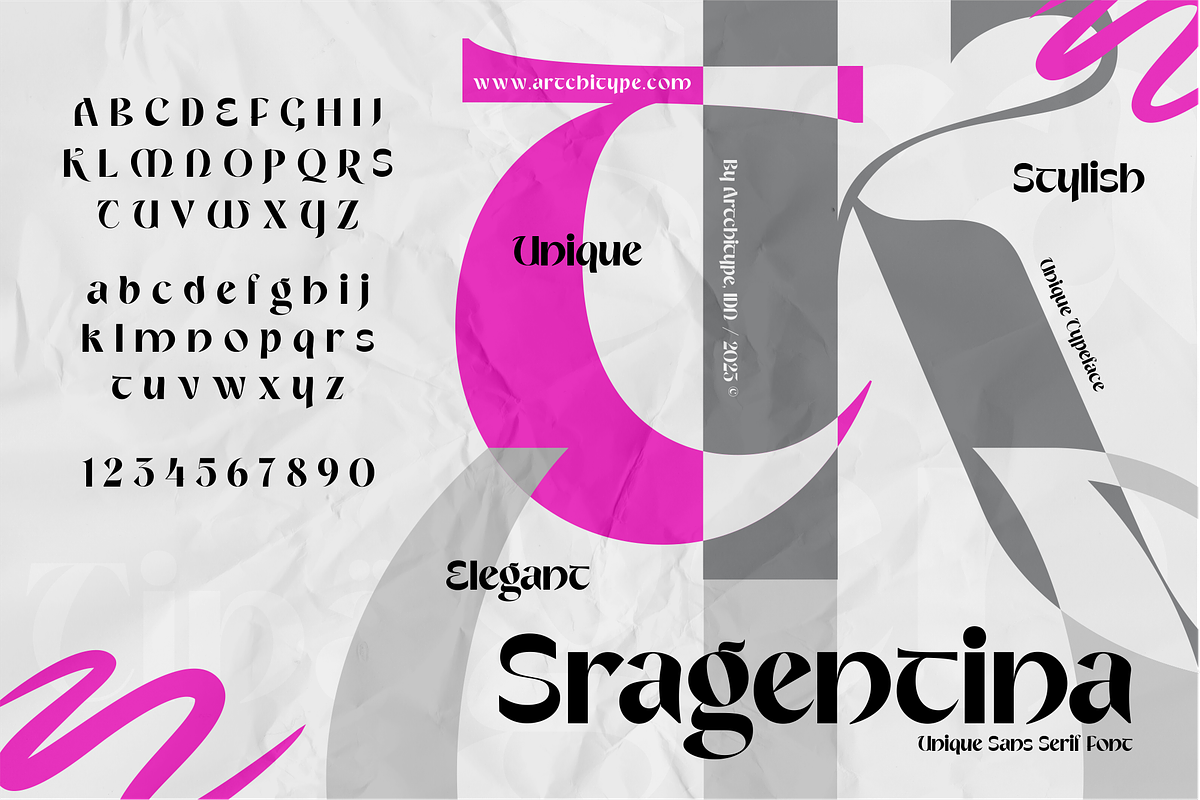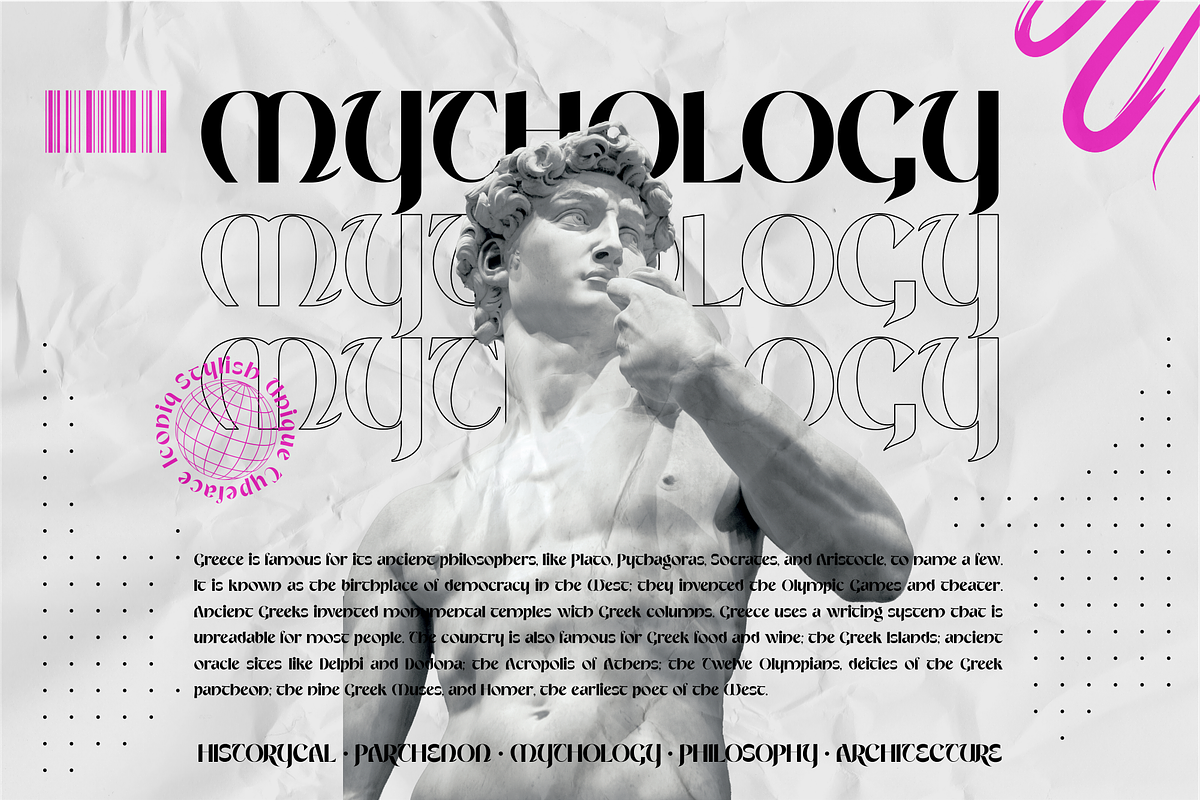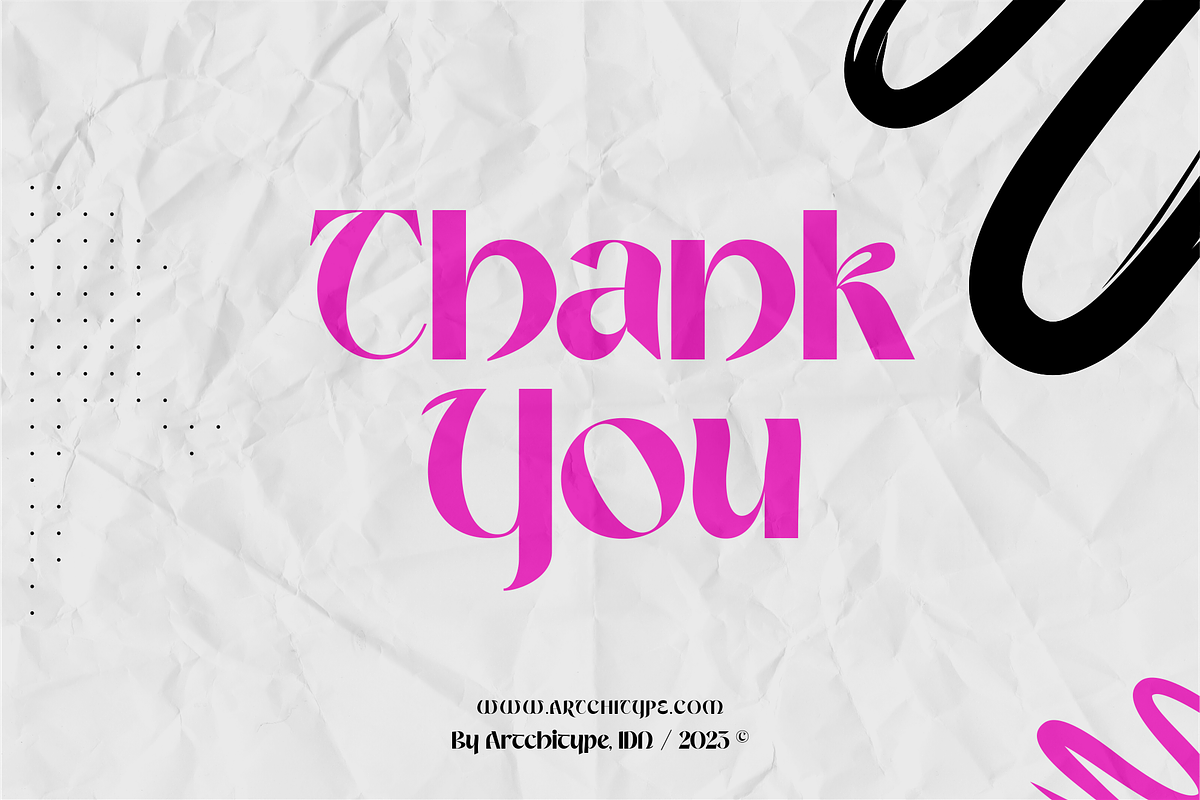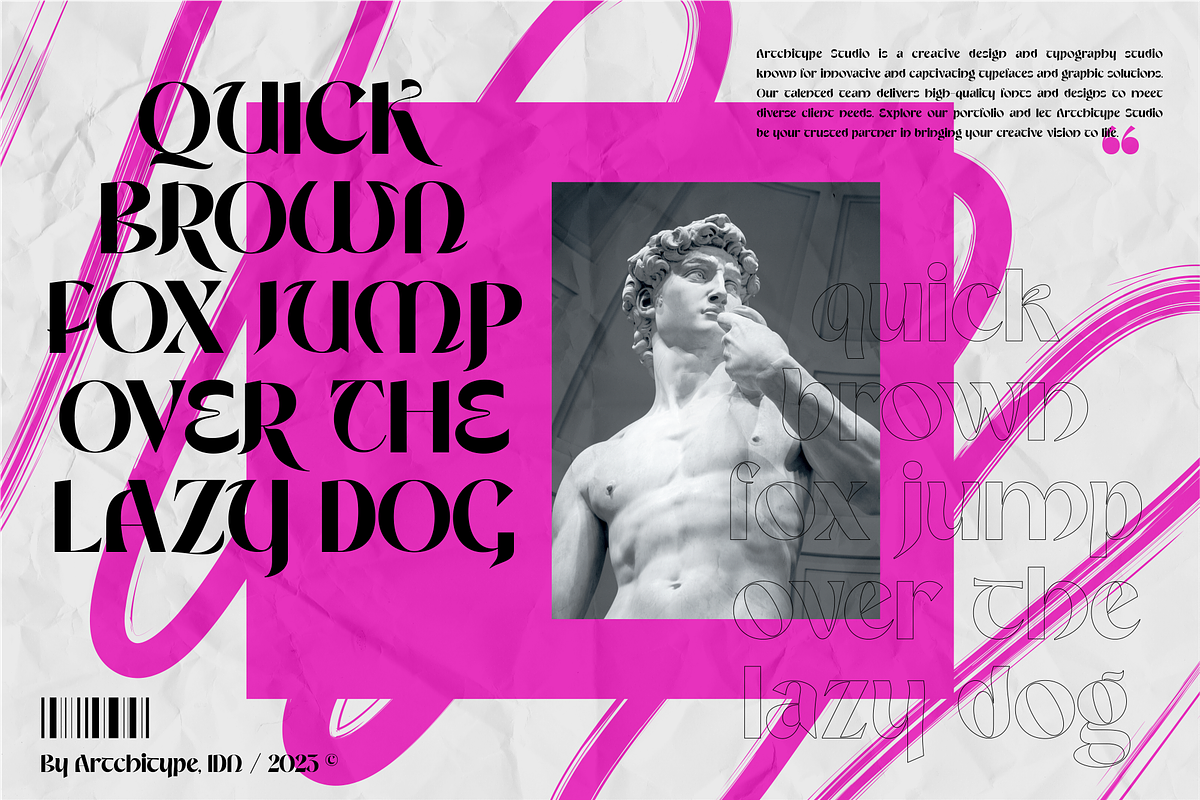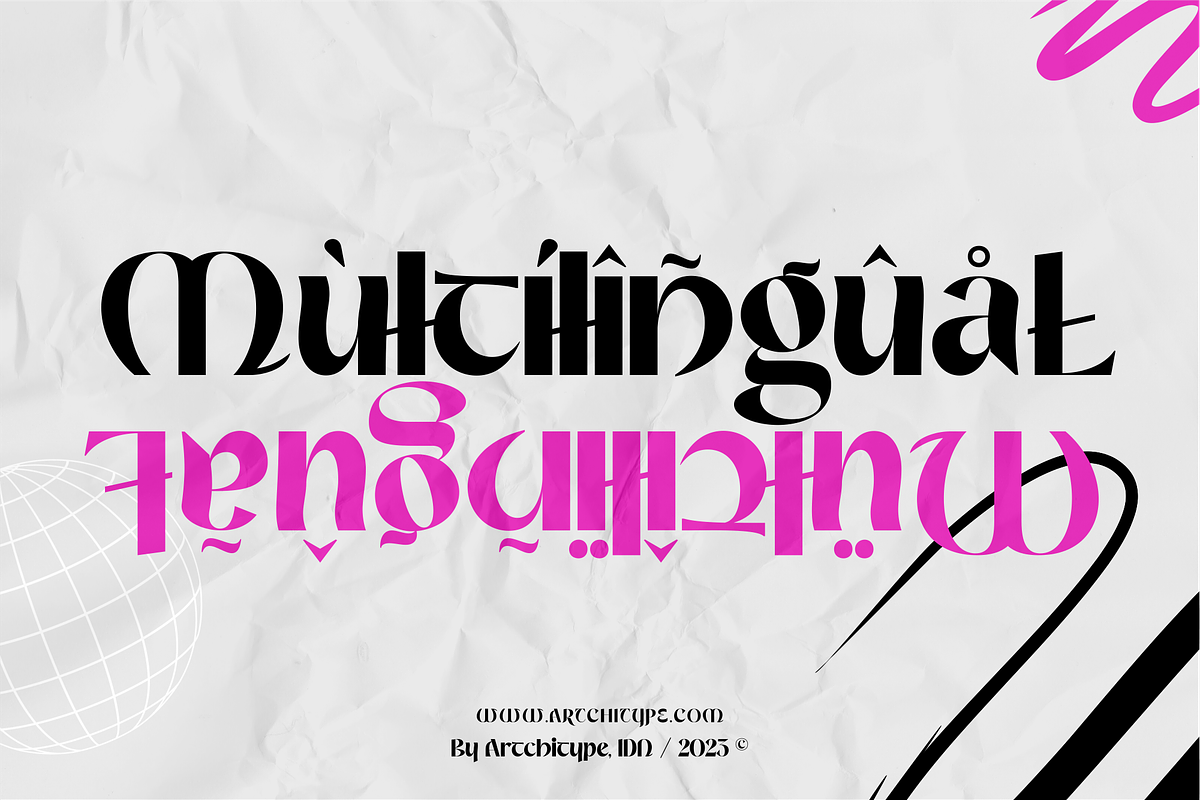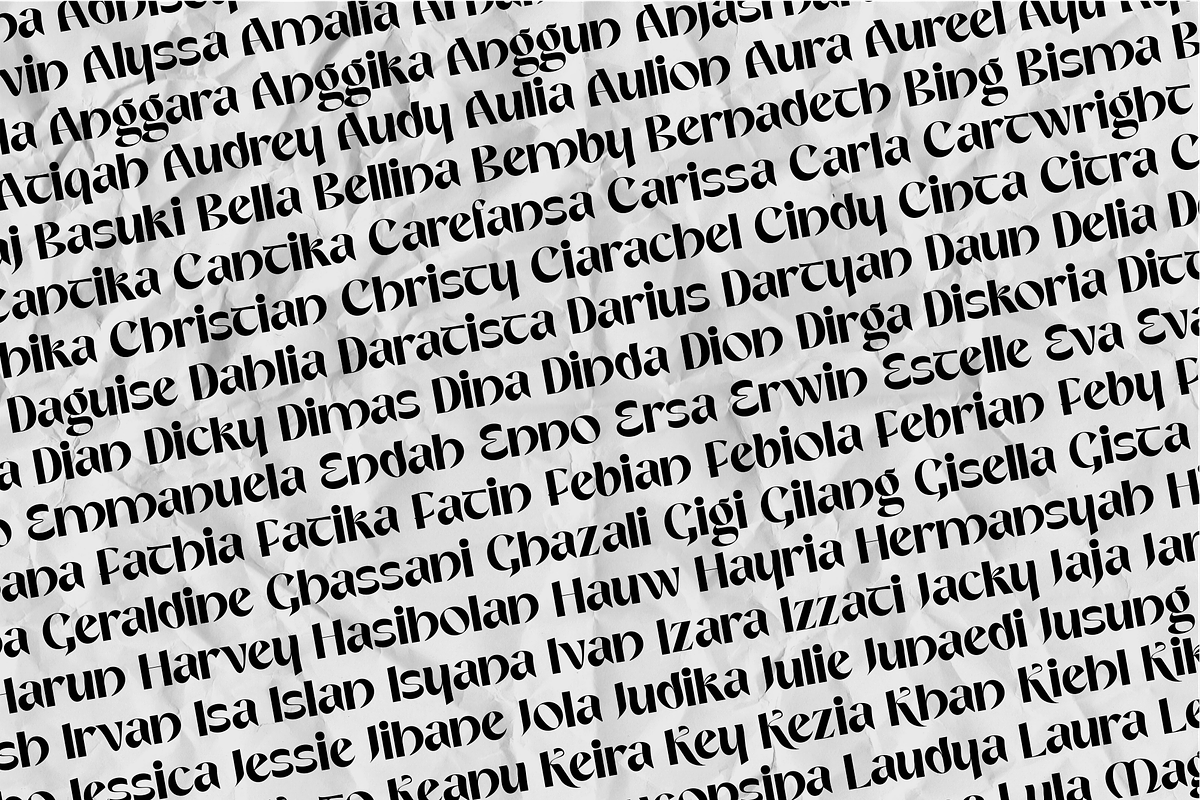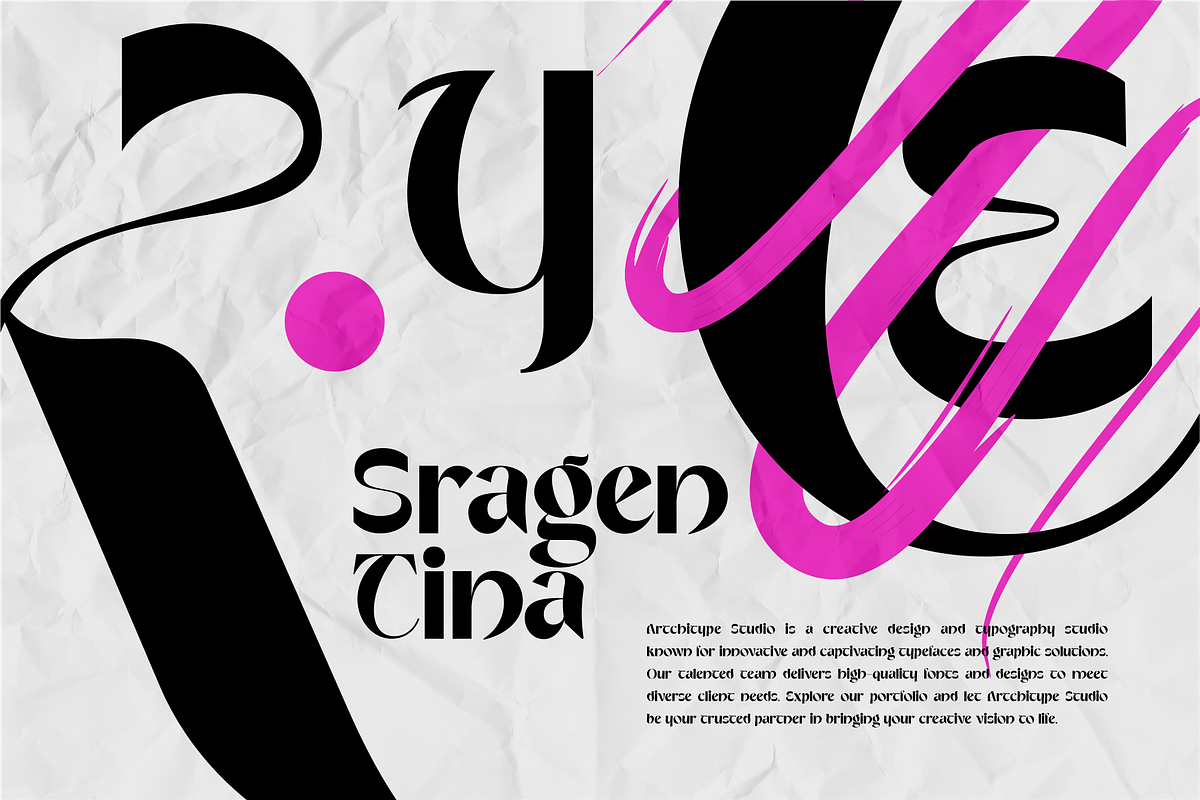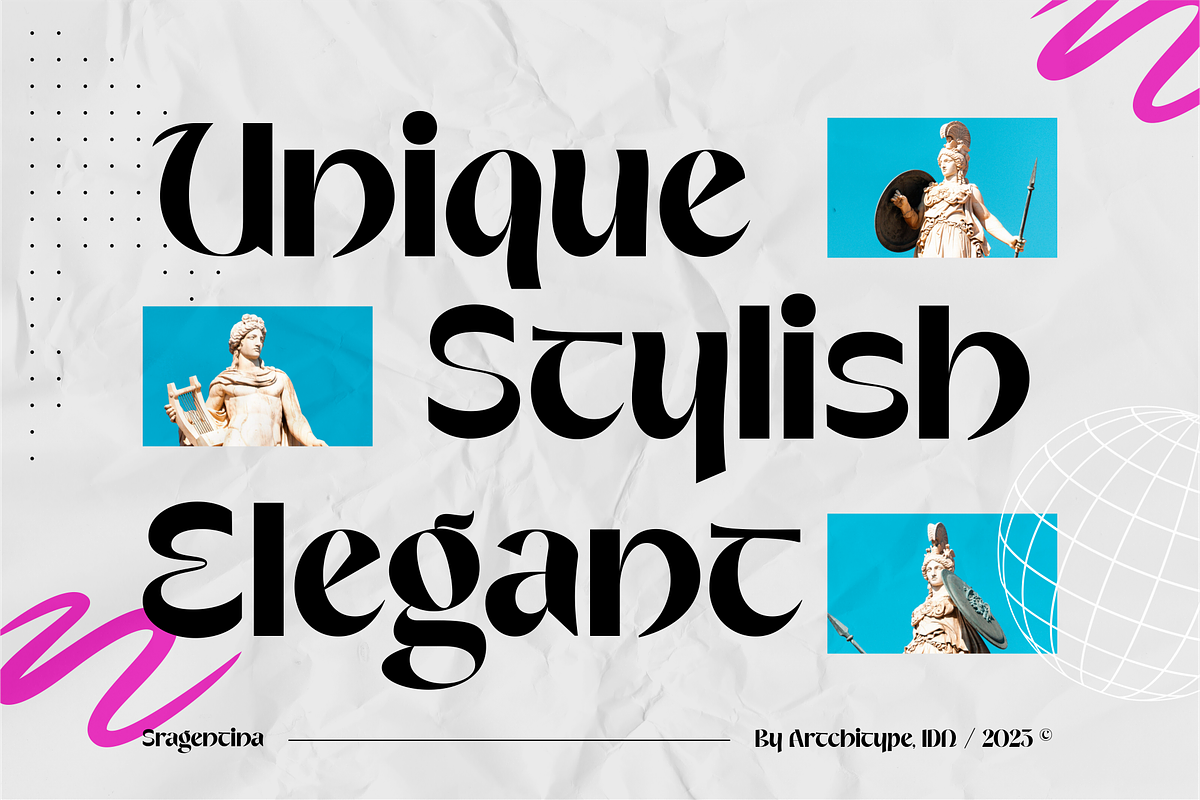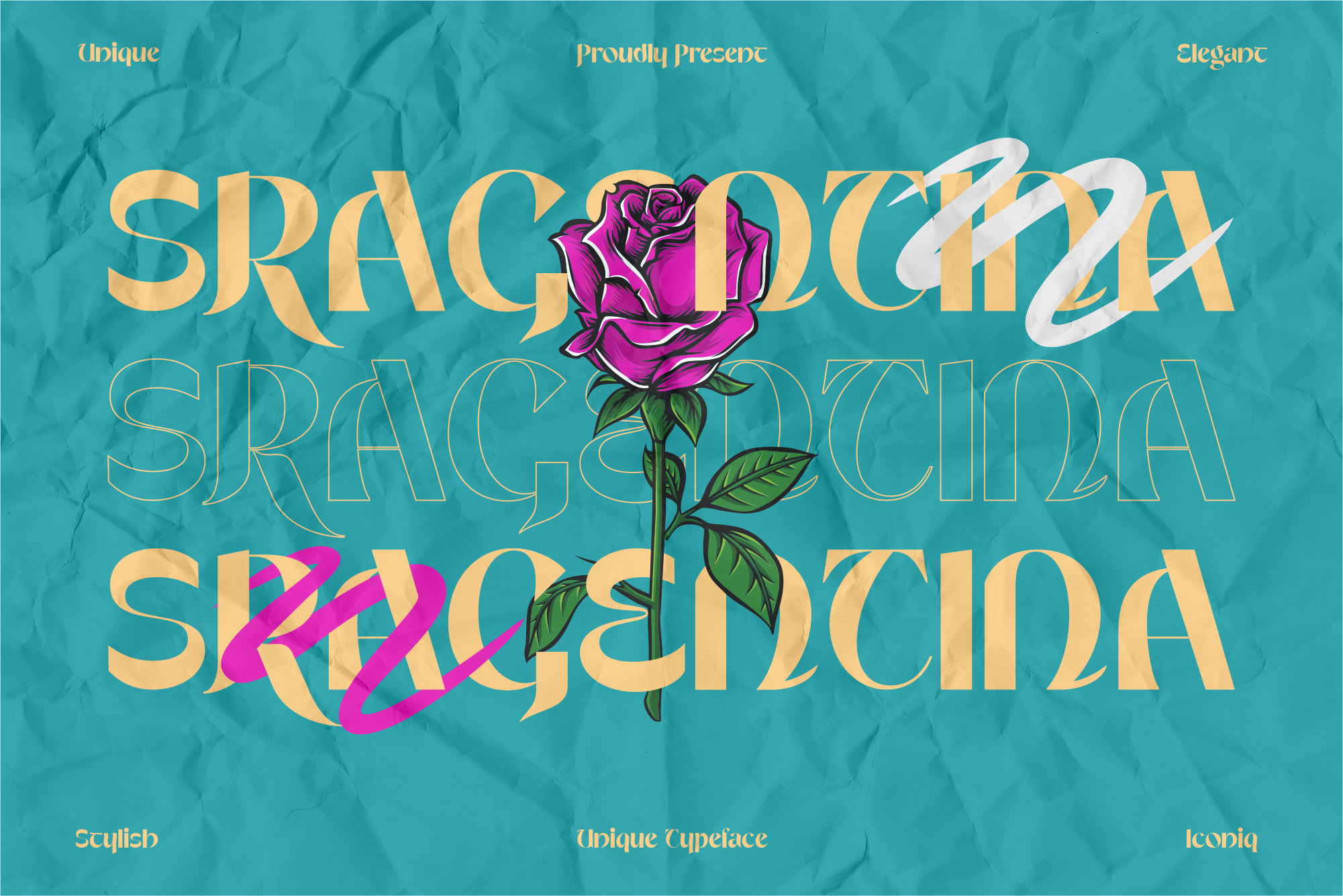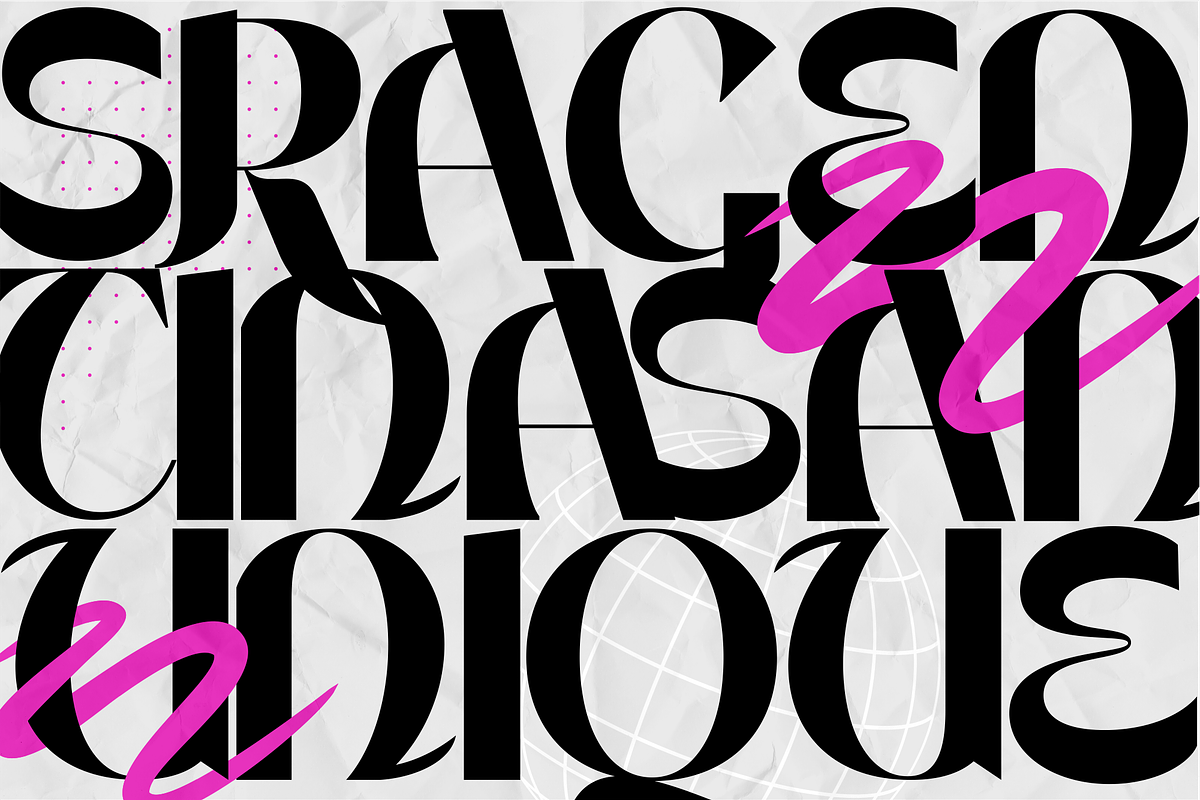
Sragentina - Unique Typeface
Sragentina is unique typeface with 270+ characters. Includes uppercase, lowercase characters, multilingual, alternates and most common other characters.
Sragentina is perfect for logos, social media posts, product packaging, product designs, and other projects.